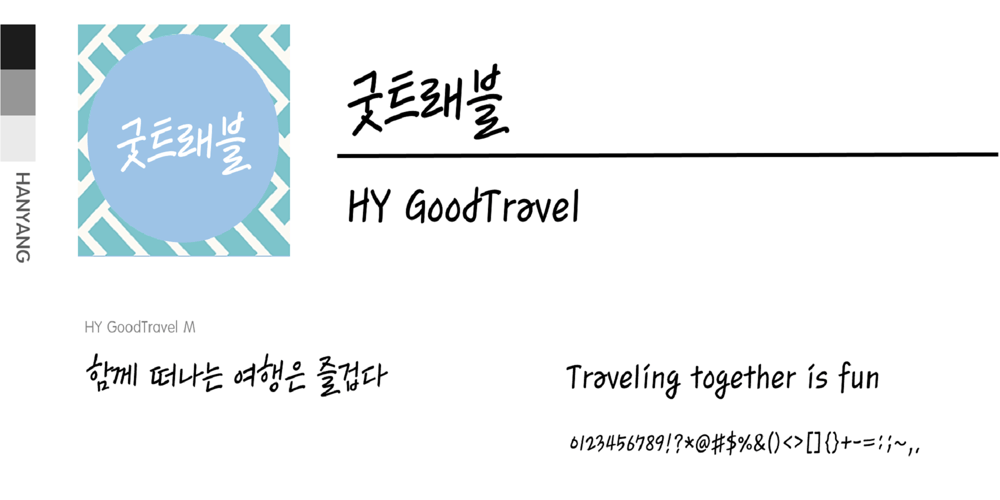
HY GoodTravel Font Family was designed by font hy and published by HY Font. HY GoodTravel contains 1 styles and family package options. It is a bright and cheerful handwriting font. Suitable for video subtitles, speech bubbles, fanciers, etc. It is a light yet clear handwriting font.